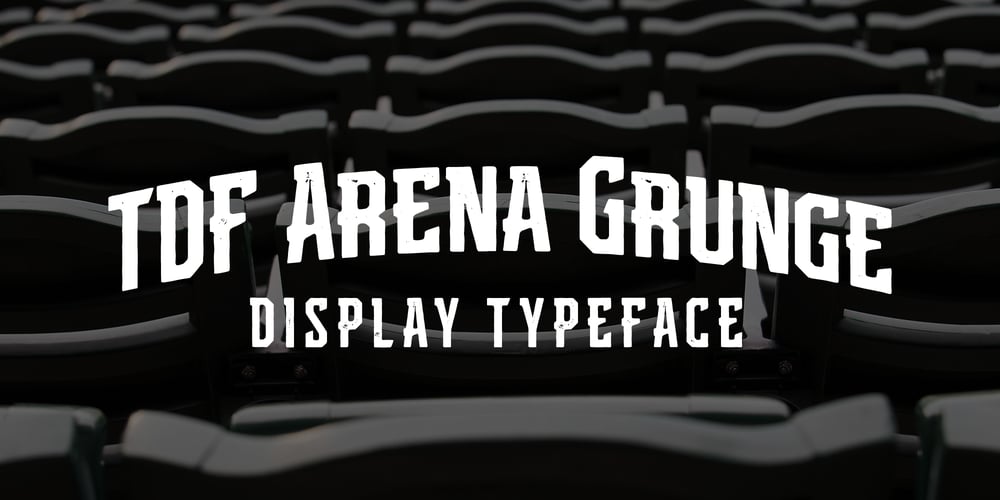
TDF Arena Font Family was designed by TJ Harley and published by TypeDrift. TDF Arena contains 1 styles and family package options. TDF Arena is a solid block font built for a sellout crowd. One of our best-selling typefaces is now available here, exclusively in a grunge style with Monotype Fonts.